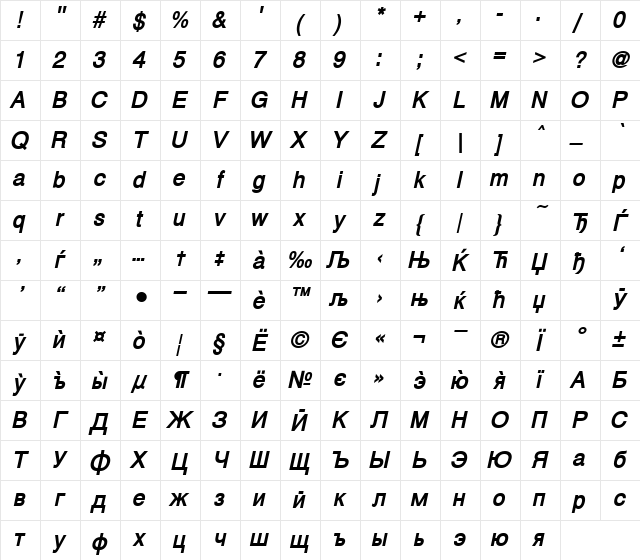
SwissCyr Bold Italic Free Font
SwissCyr Bold Italic
SwissCyr Family
Design Context for SwissCyr
SwissCyr is a composed and adaptable typeface that performs quietly and consistently across a wide range of design contexts. The slanted form adds forward momentum and visual energy. Its bold stroke weight gives it real presence on the page.